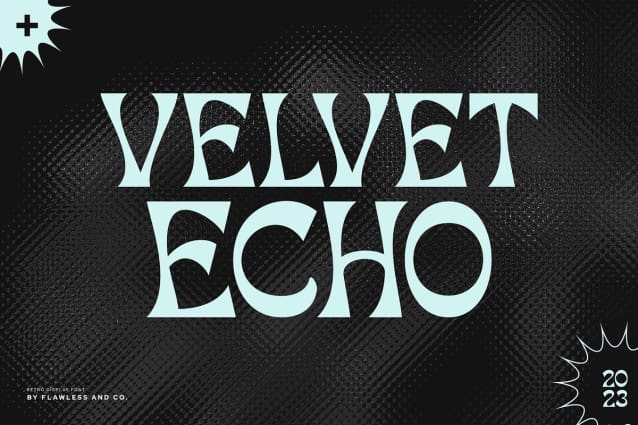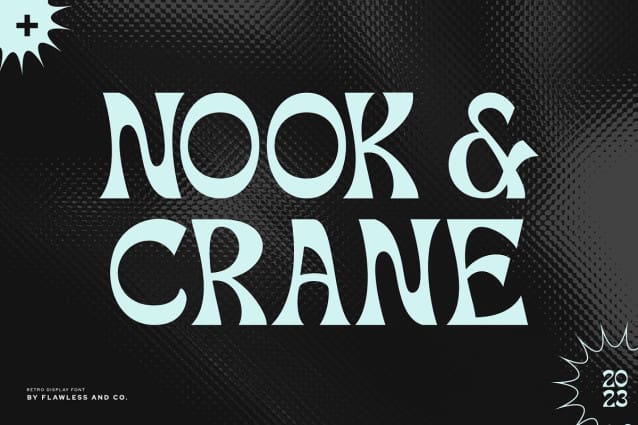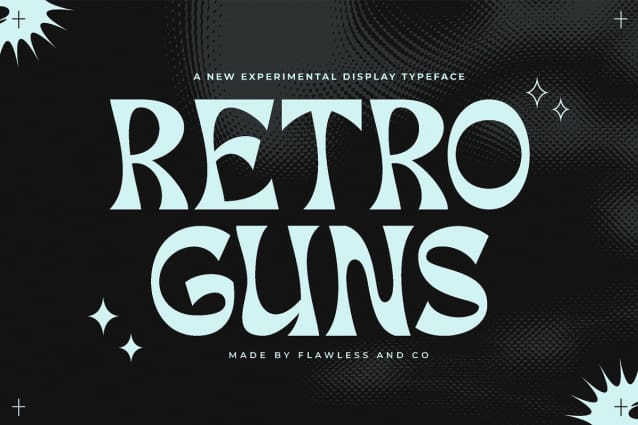
Retro Guns Font
Retro Guns Font – A Display Typeface. Step back in time and embrace the nostalgia of the past with “Retro Guns,” a captivating display typeface that embodies the essence of vintage charm. With its unique retro styling, it is designed to bring a touch of yesteryear’s character to your designs, evoking memories of a bygone era.